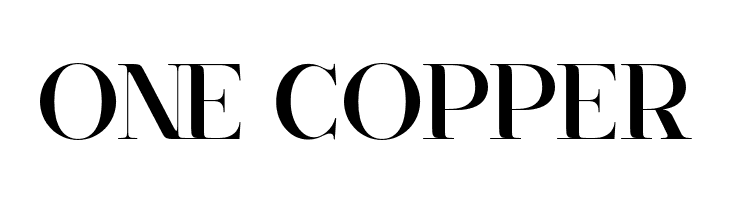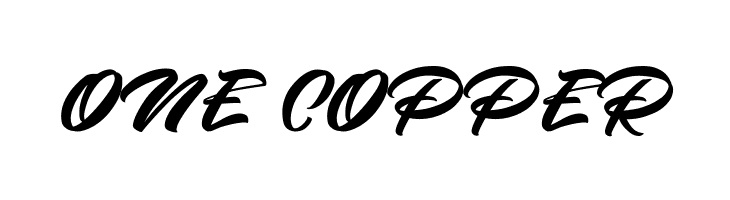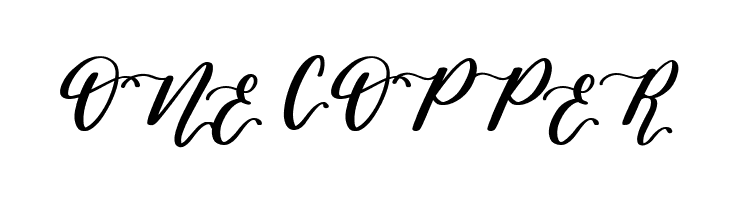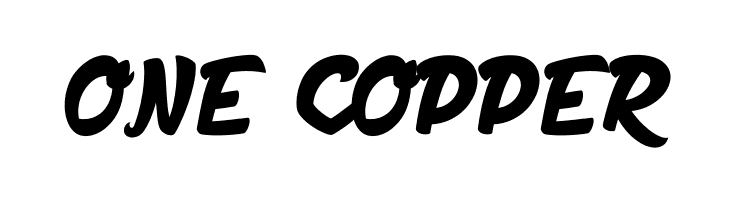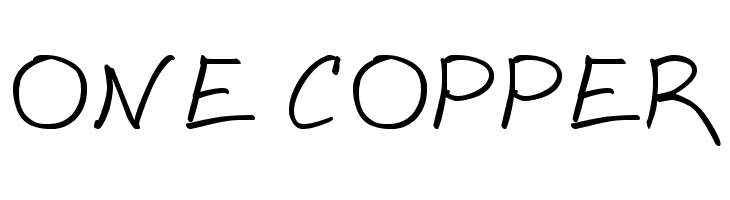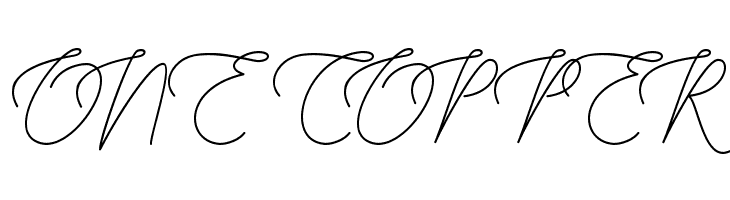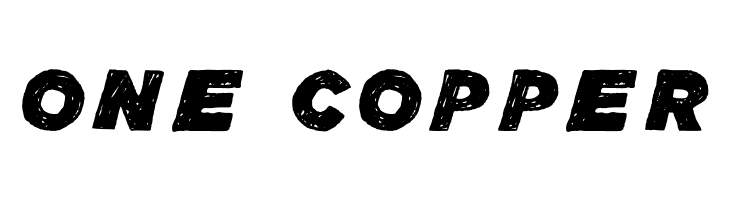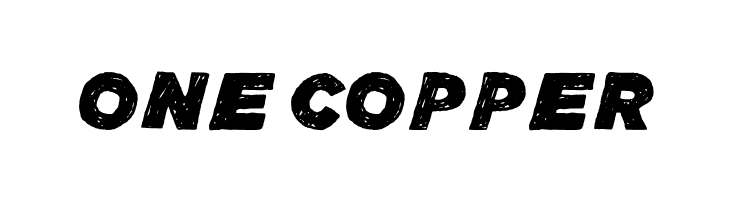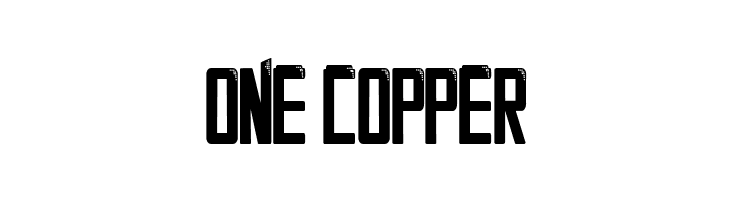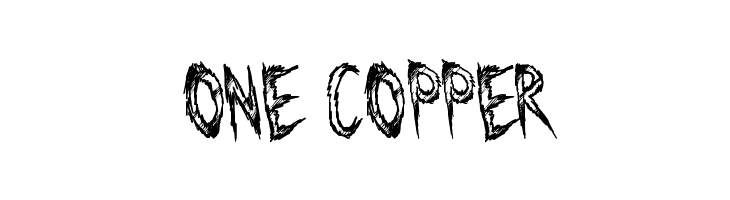
A playful, handwritten script font with bold, fluid strokes.
A modern, geometric font with bold, angular characters.
A bold, flowing script font with elegant, cursive strokes.
A bold, elegant script font with flowing, connected characters.
A flowing, cursive script with elegant loops and swirls, reminiscent of traditional calligraphy.
A high-contrast serif font with elegant, sharp serifs and a modern appeal.
A bold slab serif font with thick serifs and a strong, impactful presence.
A bold, impactful slab serif font with strong, thick strokes and prominent serifs.
A bold, modern font with tall, narrow letterforms and strong vertical emphasis.
A dynamic and energetic script font with fluid, cursive strokes and a hand-drawn appearance.
A bold, dynamic script font with interconnected characters and a modern flair.
A bold, dynamic script font with a connected, handwritten style.
A bold, dynamic brush script font with fluid, interconnected strokes.
A bold, textured, hand-drawn font with a distressed appearance.
A bold, textured all-caps font with an urban, distressed style.
A bold, hand-drawn italic font with a textured, artistic style.
A bold, textured, hand-drawn font with a playful, artistic style.
A casual, handwritten font with a playful and informal style.
A sleek, handwritten italic font with a light and elegant style.
A hand-drawn, casual font with a playful and approachable style.
A dynamic, handwritten-style font with an italic slant and consistent stroke width.
A bold, textured, and italic font with a hand-drawn style.
An elegant and flowing script font with intricate loops and swashes.
A sophisticated, cursive script with graceful, elongated letterforms.
A bold, geometric font with strong, angular lines and a modern aesthetic.
A bold, italic, and geometric font with a modern and dynamic style.
A bold, italic, and modern font with a sleek, dynamic style.
A modern, elegant script typeface with bold, slanted characters.
A rugged, distressed font with jagged edges and an aggressive style.
Bold, italicized font with a grungy, distressed texture and angular design.
A bold, grunge-textured font with a rugged, geometric style.